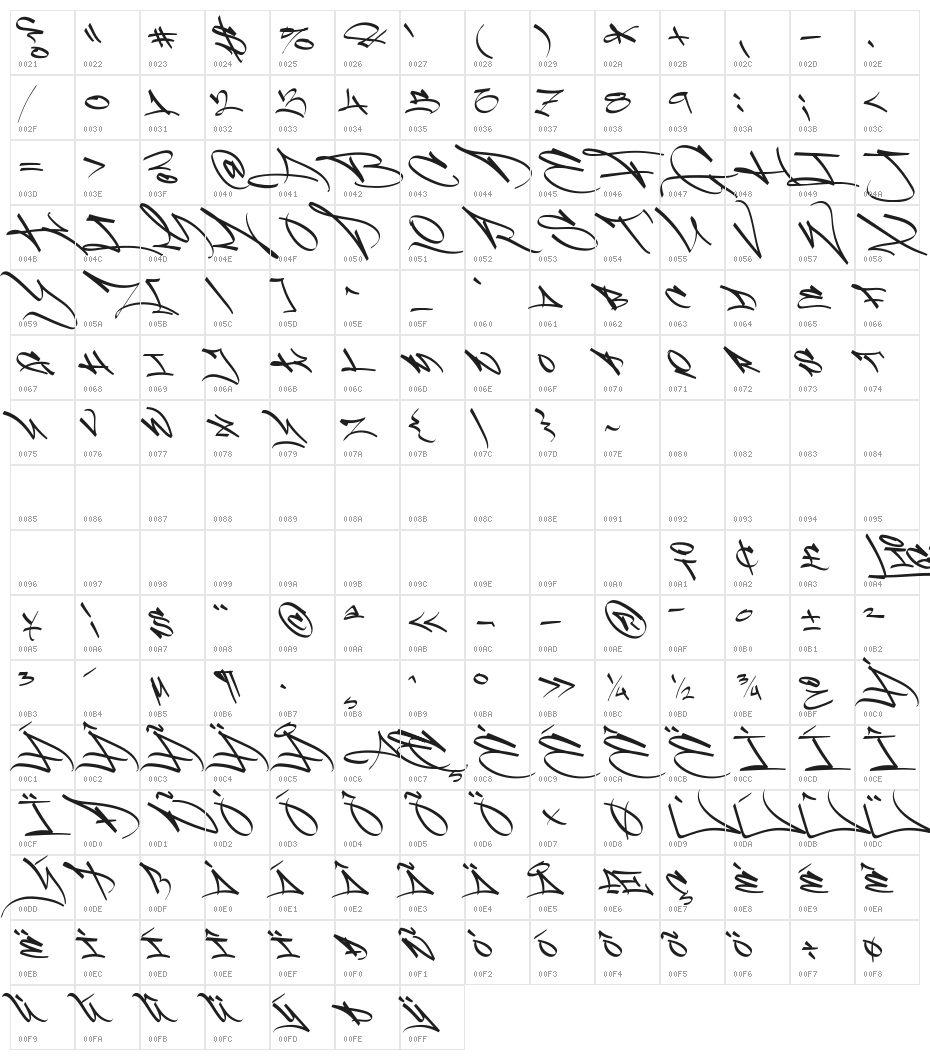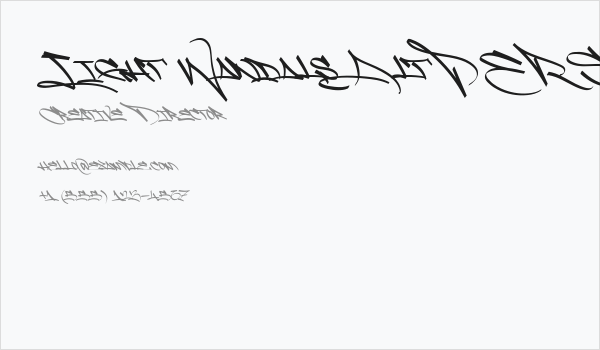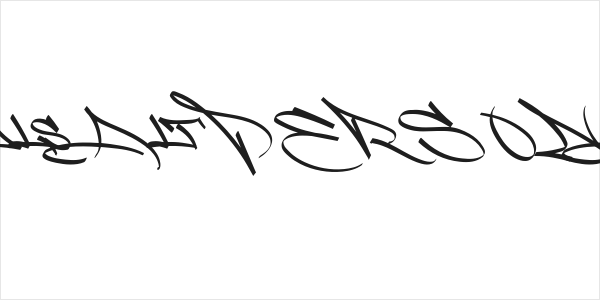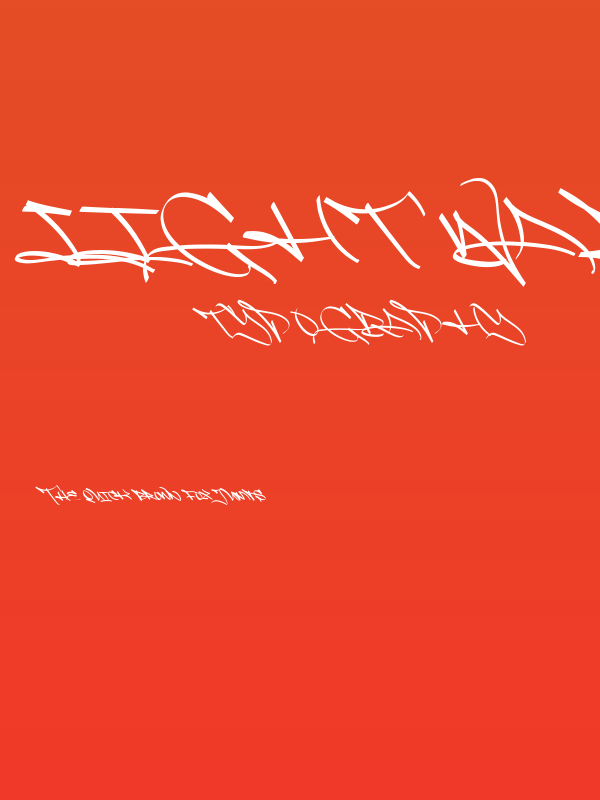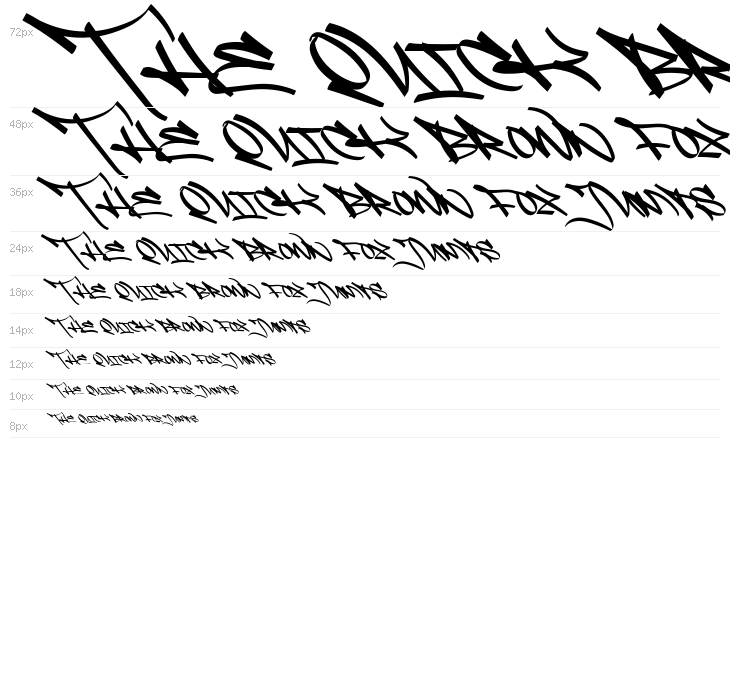
Light Wandals Alt PERSONAL USE Font
Light Wandals Alt PERSONAL USE Description
This font exhibits a dynamic and edgy style, reminiscent of urban graffiti art. The characters are highly stylized with exaggerated curves and sharp angles, creating a sense of movement and energy. The uppercase and lowercase letters maintain a consistent aesthetic, with a bold and expressive appearance. Numbers and special characters follow the same artistic theme, ensuring uniformity across all glyphs. The font's unique design makes it stand out, capturing attention with its artistic flair and rebellious spirit.
| Overall Style | Modern, Urban |
| Use Case | Logos, Posters, Album Covers |
| Proposed Projects | Ideal for street art projects, urban-themed designs, music album covers, and edgy branding. |